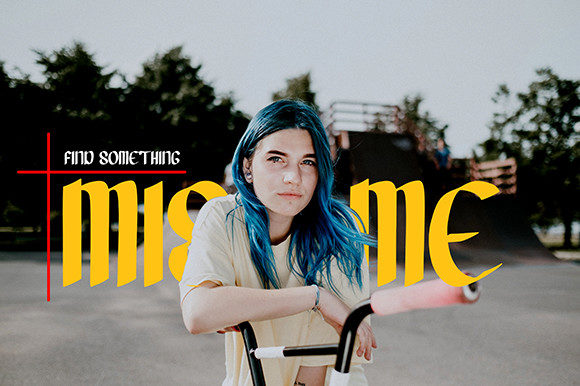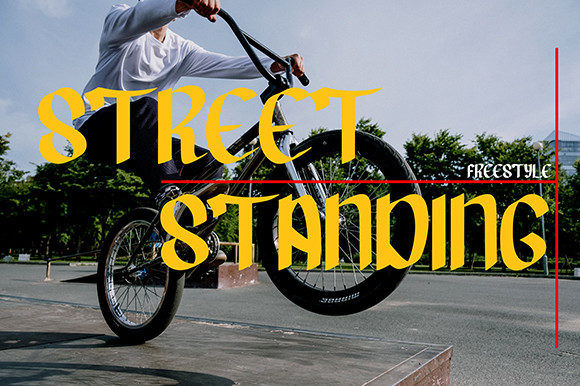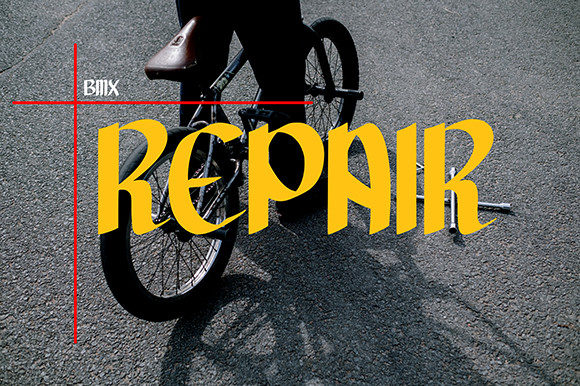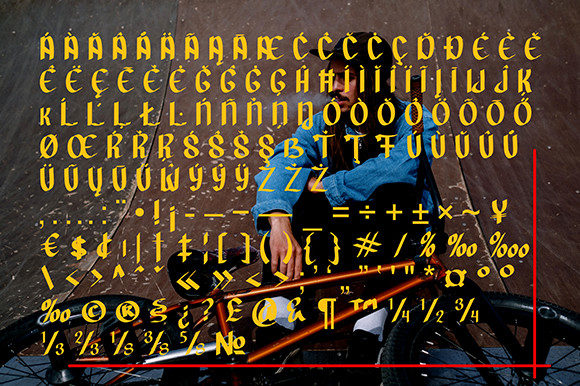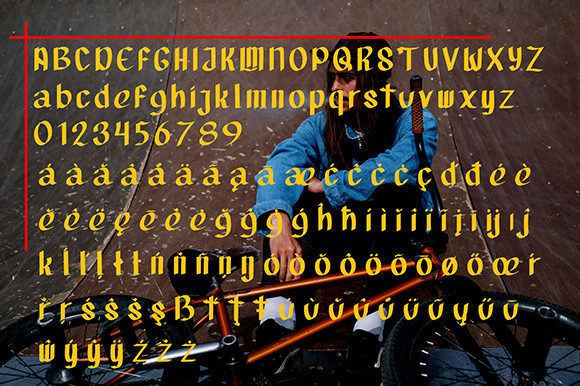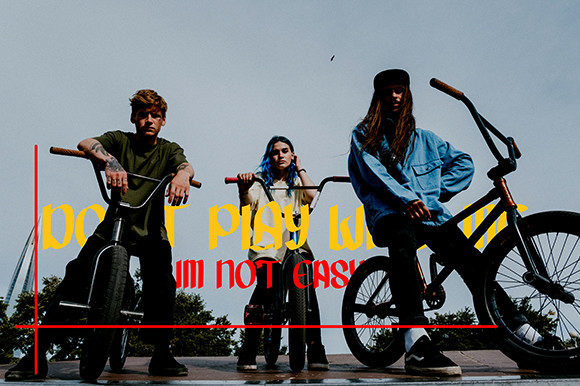
Introduction to Paranoied Font
Paranoied is a cool, bold and thick lettered display font.
It is PUA encoded which means you can access all glyphs and swashes with ease Add it confidently to your favorite creations and let yourself be amazed by the outcome generated.
Key Features of Paranoied Font